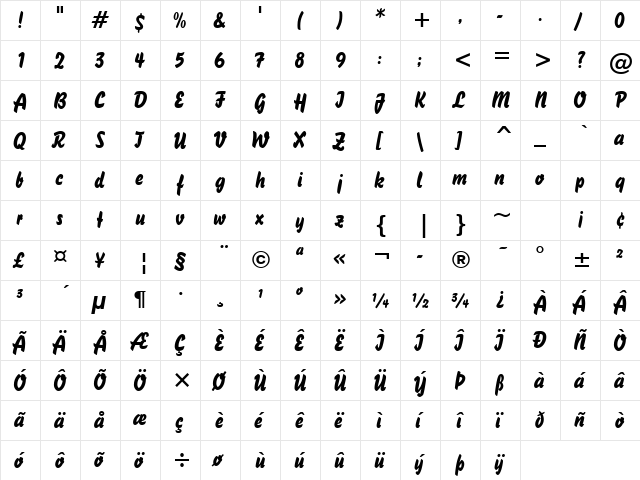
Brush738 BT Regular
Design Context for Brush738 BT Typeface
Brush738 BT flows with the natural rhythm of handwritten lettering, making it ideal for designs that call for warmth and personal expression.
Font Pairing: Combine Brush738 BT with a simple geometric sans for maximum contrast — the tension between flowing curves and clean structure is a classic typographic pairing.
Pro Tip: Pair Brush738 BT with a clean sans-serif for supporting text. The contrast between fluid script and geometric structure creates an elegant typographic hierarchy.